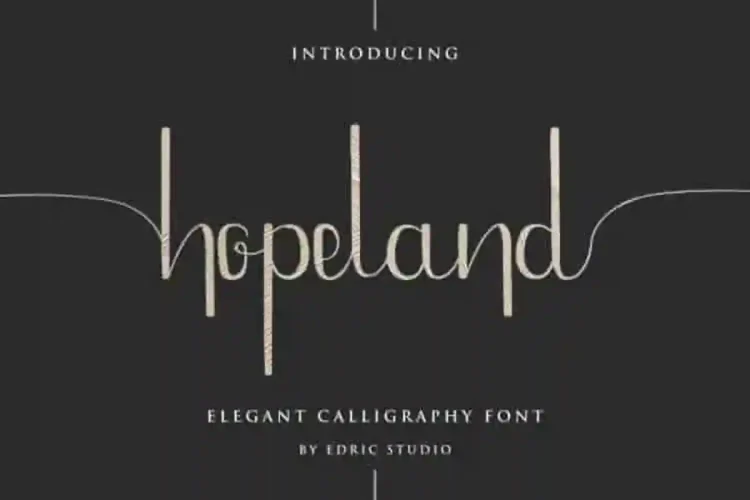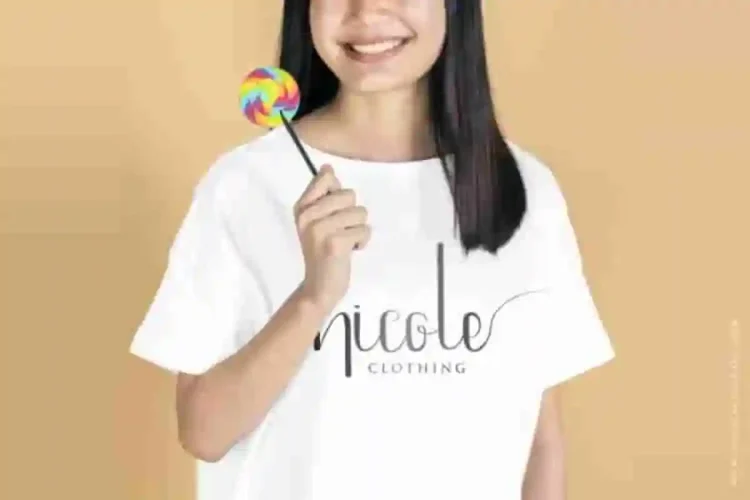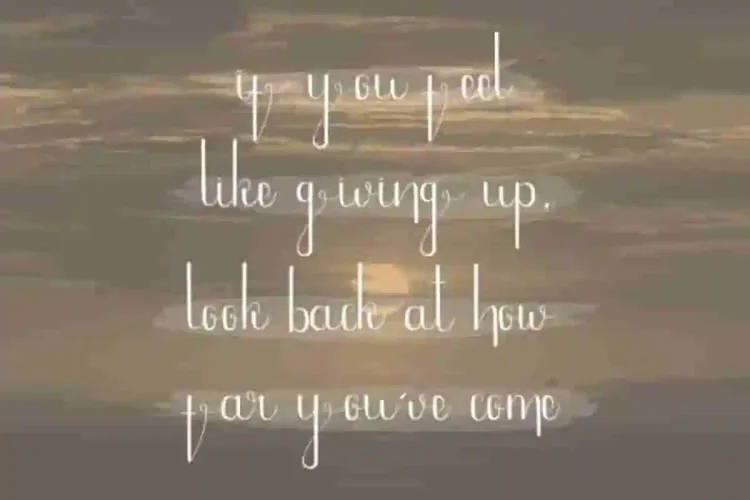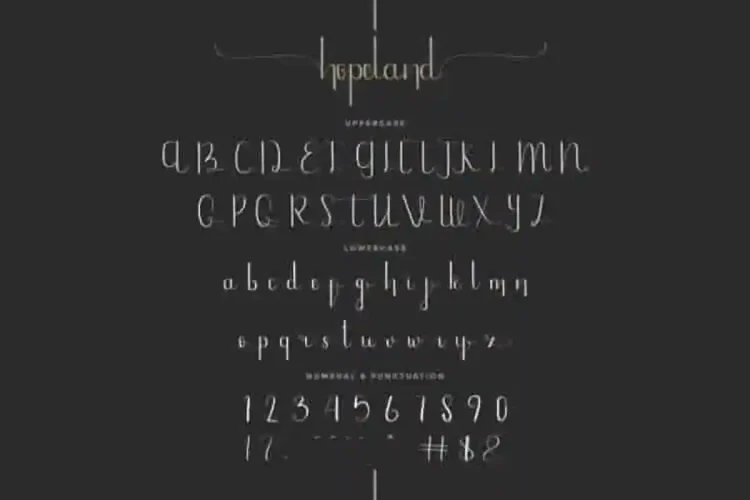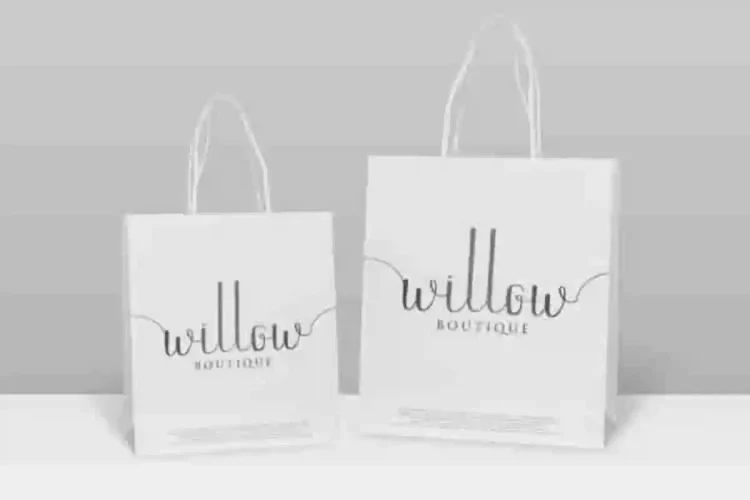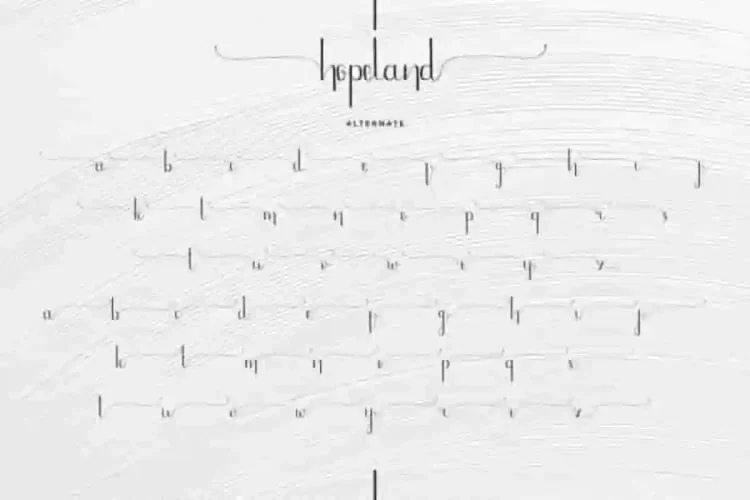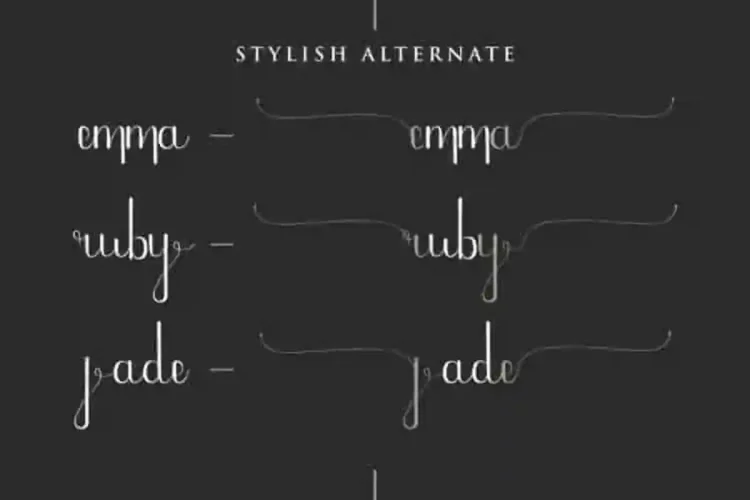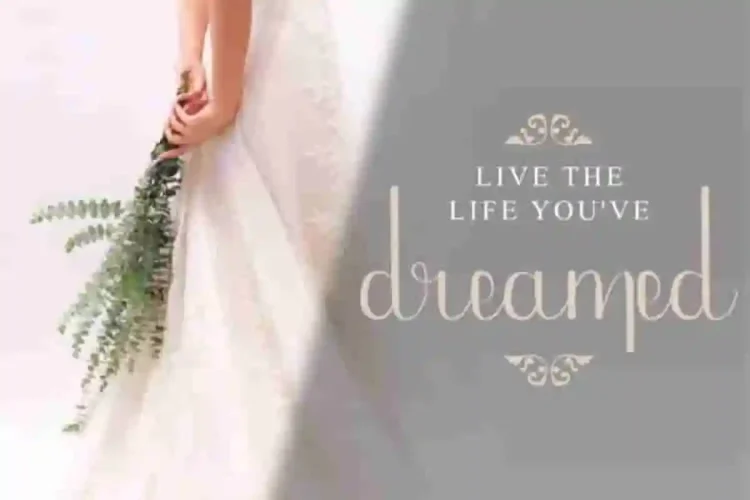
HopeLand Calligraphy Script Font
HopeLand Font is a stunning calligraphy script font with beautiful handwritten style. A stunning handwritten calligraphy typeface handcrafted in our Indonesian studio by skilled designers Saila and Sarah.
HopeLand Calligraphy Script Font has exclusive calligraphy script letters with unique natural look that is elegant,  sophisticated, stylish, textured and classic style. It has a stunning characters set, perfectly managed with well spaced and kerning.
HopeLand Font will be great for any projects (with extended license) including : branding, logo, stationery, business card, signage, flyer, brochure etc. Almost all industries will be match for this typeface: wedding, events, restaurant, architect, law firm, florist, gardening, makeup artist, travel, hotel, musician etc.